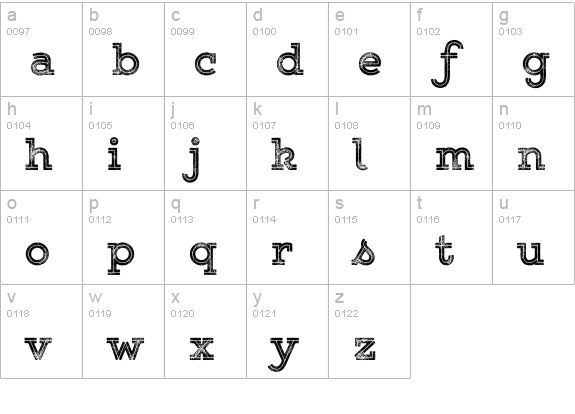
Gist Rough Upr Exbold Two Demo Font Details
Introducing Gist Rough Upr Exbold Two Demo, a striking and versatile font that embodies the perfect balance between raw energy and refined elegance. This font is designed to make a bold statement, capturing attention with its distinct and edgy appearance. The Gist Rough Upr Exbold Two Demo font is perfect for creating captivating headlines, eye-catching logos, and impactful designs that demand attention. With its unique and rough texture, this font adds a touch of authenticity and character to any project. Each letter is meticulously crafted, showcasing a harmonious blend of sharp angles and subtle curves. The result is a visually captivating font that stands out from the crowd. The versatility of the Gist Rough Upr Exbold Two Demo font is truly remarkable. Whether you're designing for print or digital platforms, this font adapts effortlessly to any medium. Its legibility remains uncompromised even at smaller sizes, making it suitable for body text as well. One of the most impressive aspects of the Gist Rough Upr Exbold Two Demo font is that it is available for free. You can download this font without any restrictions or limitations at FontsMarket.com. This means that you can unleash your creativity without any financial constraints, making it an ideal choice for both personal and commercial projects. With its bold and dynamic aesthetic, the Gist Rough Upr Exbold Two Demo font is a valuable addition to any designer's toolkit. Its captivating presence and versatility make it perfect for a wide range of applications, from branding and advertising to packaging and web design. Whether you're looking to make a statement or add a touch of uniqueness to your designs, this font is sure to exceed your expectations. Download the Gist Rough Upr Exbold Two Demo font for free at FontsMarket.com and unlock a world of creative possibilities. Don't miss out on this opportunity to elevate your designs with this exceptional font.